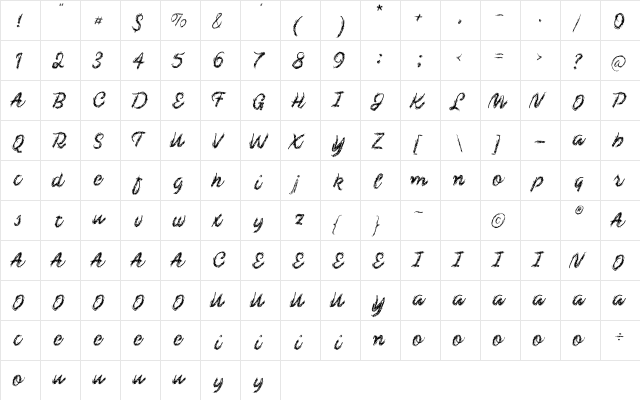
Chalk-y Brush
| Style | Brush |
| Foundry | Stefancu Gabriel-Adrian |
| Designer | Stefancu Gabriel |
Design Context for Chalk-y Typeface
Chalk-y flows with the natural rhythm of handwritten lettering, making it ideal for designs that call for warmth and personal expression.